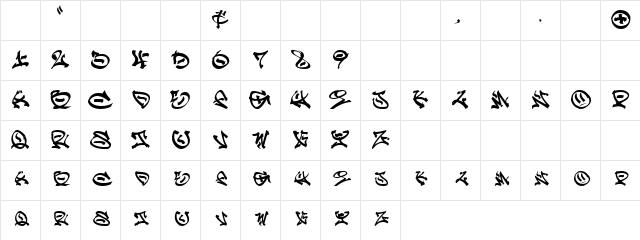
GRAFFPITY Regular Free Font
GRAFFPITY Regular
Design Context for GRAFFPITY
GRAFFPITY is a composed and adaptable typeface that performs quietly and consistently across a wide range of design contexts.